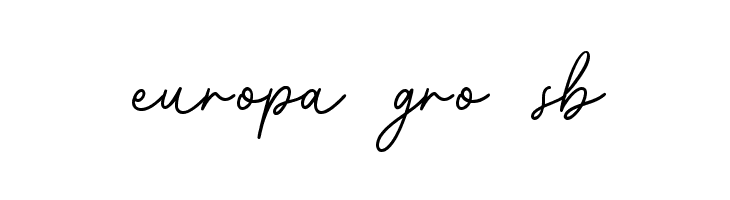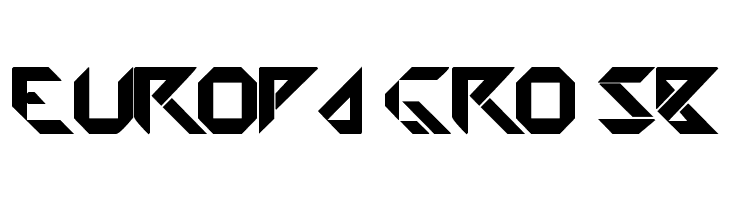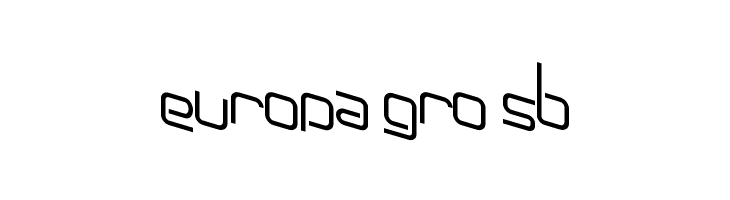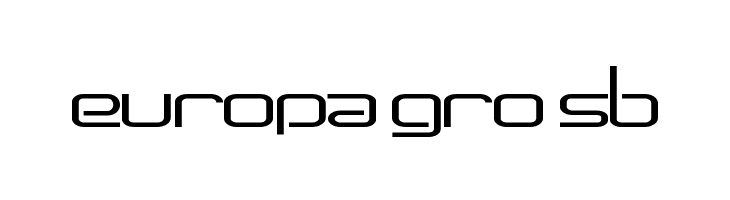
A futuristic, skewed font with angular, geometric characters.
A modern, geometric font with elongated, sleek characters.
A bold, geometric font with a futuristic, angular design.
A handwritten, cursive font with elegant, flowing strokes.
A modern sans-serif font with geometric influences and consistent stroke width.
A bold, modern sans-serif font with rounded, slightly condensed characters.
A modern, italic sans-serif font with a sleek and dynamic style.
A bold, brush-style font with dynamic, hand-drawn strokes.
A dynamic and expressive cursive font with a calligraphic influence.